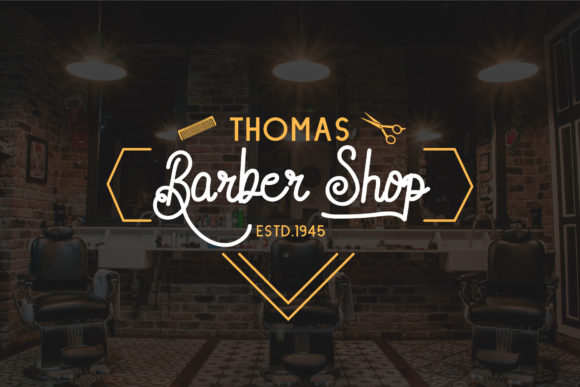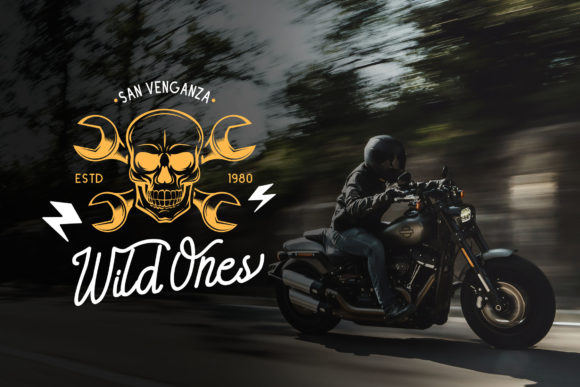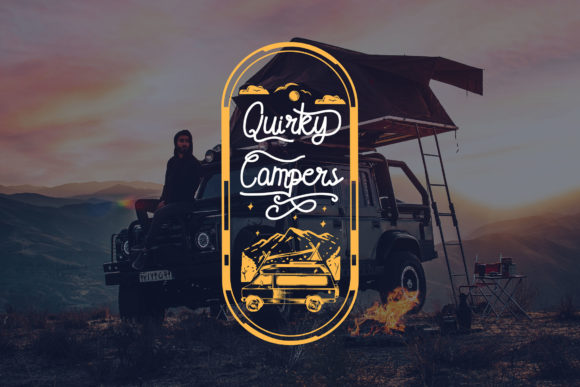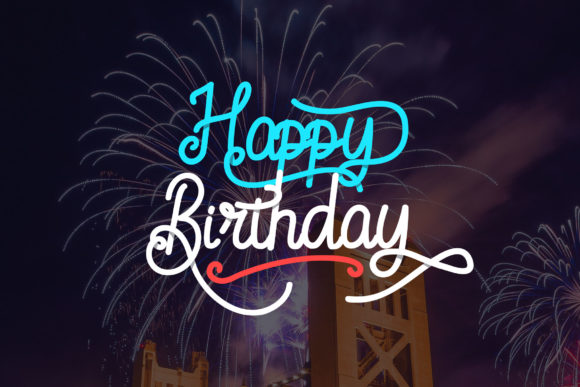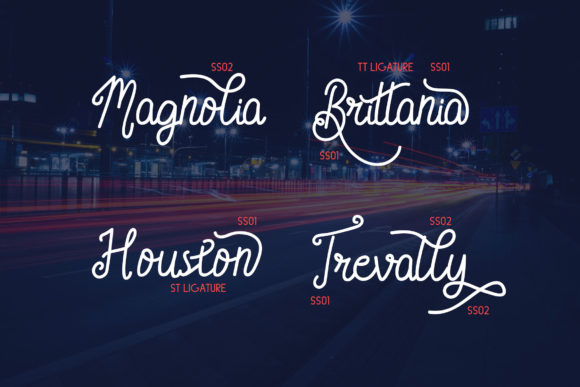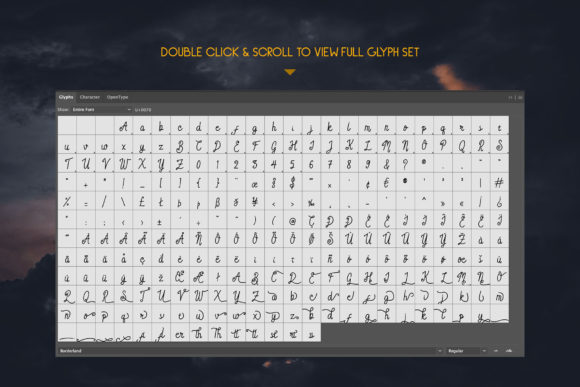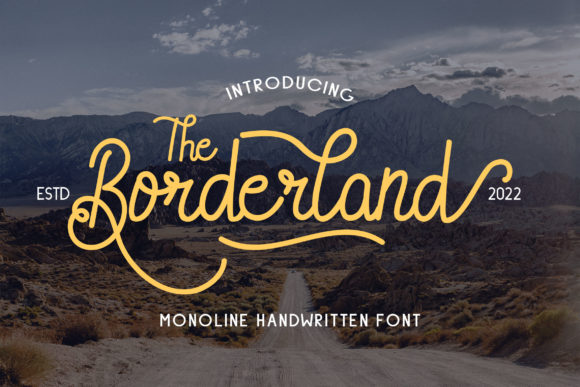
Introducing Borderland Font: A Timeless Vintage Elegance
Are you on the hunt for a font that exudes classic sophistication and versatility? Look no further than Borderland Font, a stunning vintage-styled and elegant handwritten font that is sure to capture your heart. With its distinct and well-balanced letters, Borderland Font is a masterpiece that can elevate your designs to new heights.
The Unique Charm of Borderland Font
Borderland Font boasts an incredibly versatile style that can be used to create a wide range of designs, from elegant wedding invitations and sophisticated business cards to eye-catching posters and captivating social media graphics. Its unique charm lies in its ability to seamlessly blend vintage flair with modern sensibilities, making it an ideal choice for designers and crafters looking to add a touch of timeless elegance to their work.
Key Features of Borderland Font
- Vintage Flair: Borderland Font’s vintage-inspired design is perfect for creating designs that evoke a sense of nostalgia and classic sophistication.
- Elegant Handwritten Style: The font’s elegant handwritten style adds a touch of warmth and personality to any design.
- Distinct and Well-Balanced Letters: Each letter in Borderland Font is carefully crafted to ensure perfect balance and harmony, making it a joy to read and behold.
- Versatility: Borderland Font can be used for a wide range of design projects, from print materials to digital applications.
Why Choose Borderland Font?
With so many fonts available, why choose Borderland Font? Here are just a few reasons why designers and crafters are falling in love with this incredible font:
- Easy to Read: Despite its elegant and cursive nature, Borderland Font is surprisingly easy to read, making it perfect for body text and captions.
- Highly Customizable: With its wide range of characters and alternates, Borderland Font can be tailored to suit your unique design needs.
- Unique and Memorable: Borderland Font’s distinctive style ensures that your designs will stand out from the crowd and leave a lasting impression.
Design Ideas with Borderland Font
Borderland Font’s versatility knows no bounds, and here are just a few design ideas to get you started:
- Wedding Invitations: Create stunning wedding invitations, save-the-dates, and thank-you cards with Borderland Font’s elegant and sophisticated style.
- Branding and Packaging: Use Borderland Font to create eye-catching logos, business cards, and packaging that exudes classic elegance.
- Social Media Graphics: Elevate your social media presence with captivating graphics, quotes, and promotions featuring Borderland Font.
- Posters and Flyers: Design striking posters and flyers that showcase Borderland Font’s vintage flair and versatility.
In conclusion, Borderland Font is a timeless and elegant handwritten font that is sure to capture your heart. With its distinct and well-balanced letters, incredibly versatile style, and wide range of design applications, Borderland Font is an ideal choice for designers and crafters looking to add a touch of vintage sophistication to their work. So why wait? Fall in love with Borderland Font today and start creating spectacular designs that will leave a lasting impression!